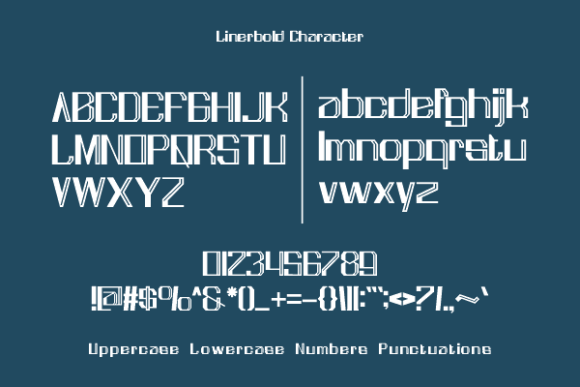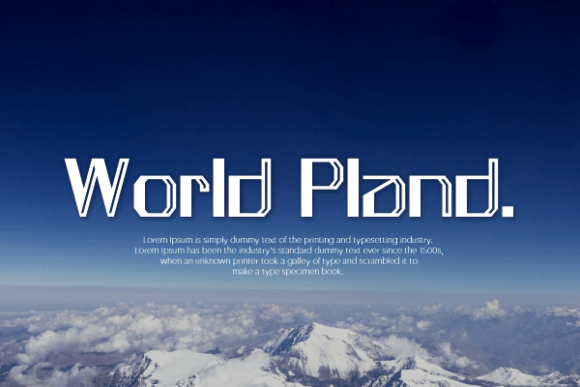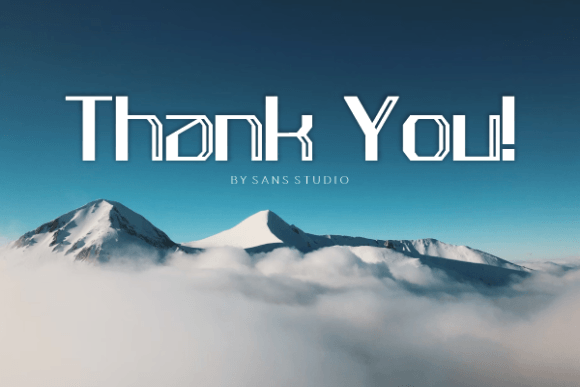
Introduction to Linerbold Font
Linerbold is a cool and modern display font.
Key Features of Linerbold Font
Why Choose Linerbold Font?
Linerbold Font offers exceptional quality and versatility, making it a valuable addition to your design toolkit. Whether you’re creating for personal projects or commercial use, Linerbold Font delivers professional results.